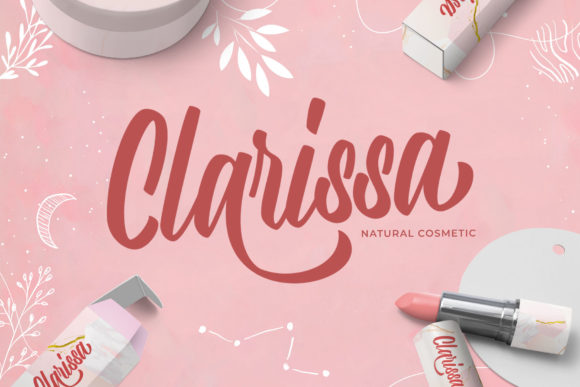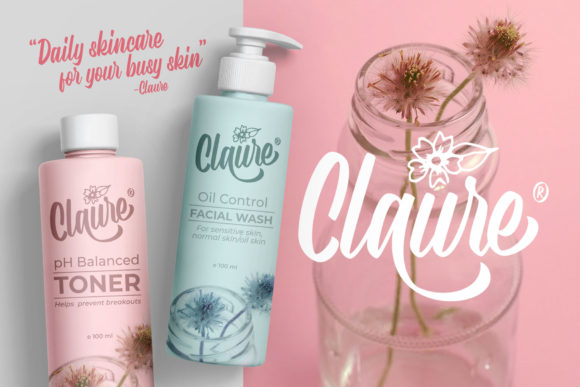
Sharely Font
db-ku.com - Script & Handwritten -- Sharely is a delicate and flowing handwritten font. Fall in love with its incredibly versatile style and use it to create gorgeous wedding invitations, beautiful stationary art, eye-catching social media posts, and much more!